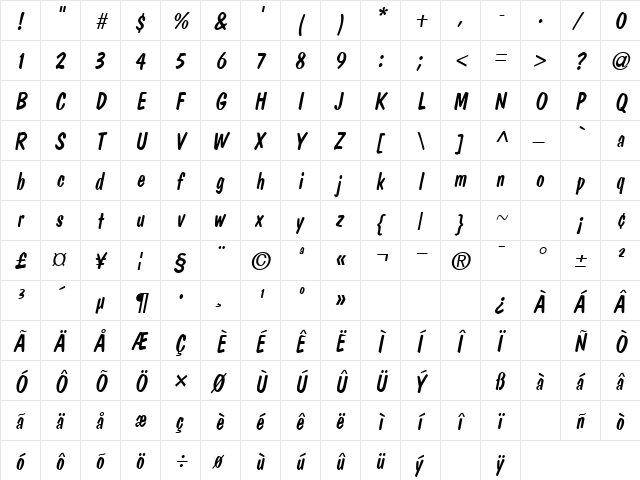
Palenque Oblique
Design Context for Palenque Typeface
Palenque offers clean, dependable letterforms without strong stylistic allegiance, making it a practical choice for designers who need flexibility. The dynamic lean of this cut emphasises speed and emphasis in any layout.
Pro Tip: Use Palenque for emphasis, pull quotes, and subheadings where its slanted energy can add rhythm to the layout.